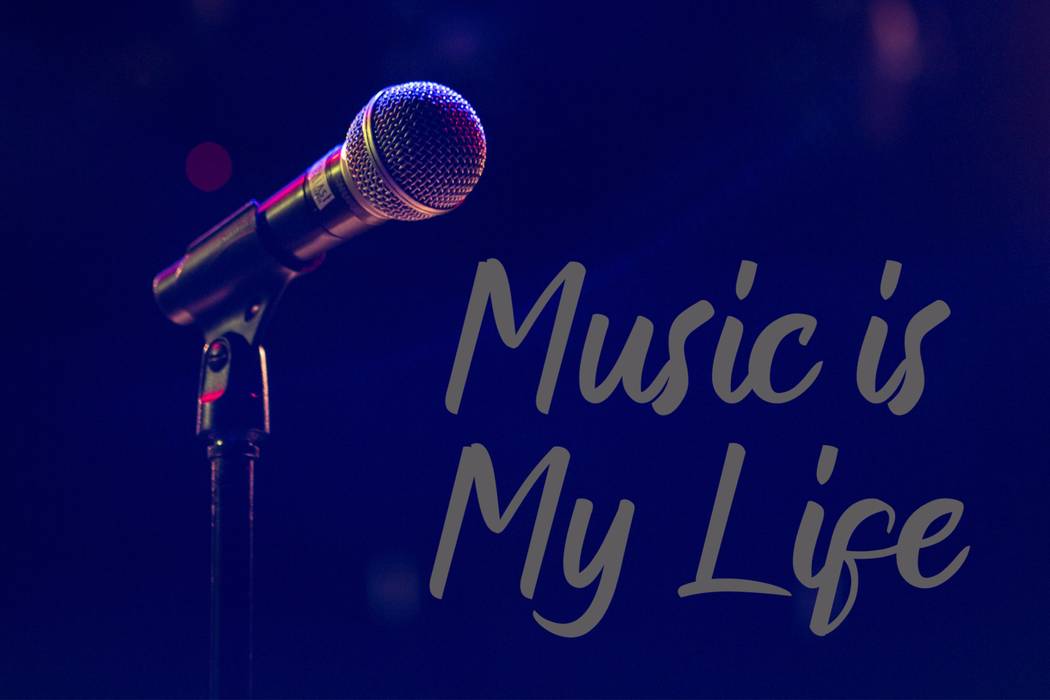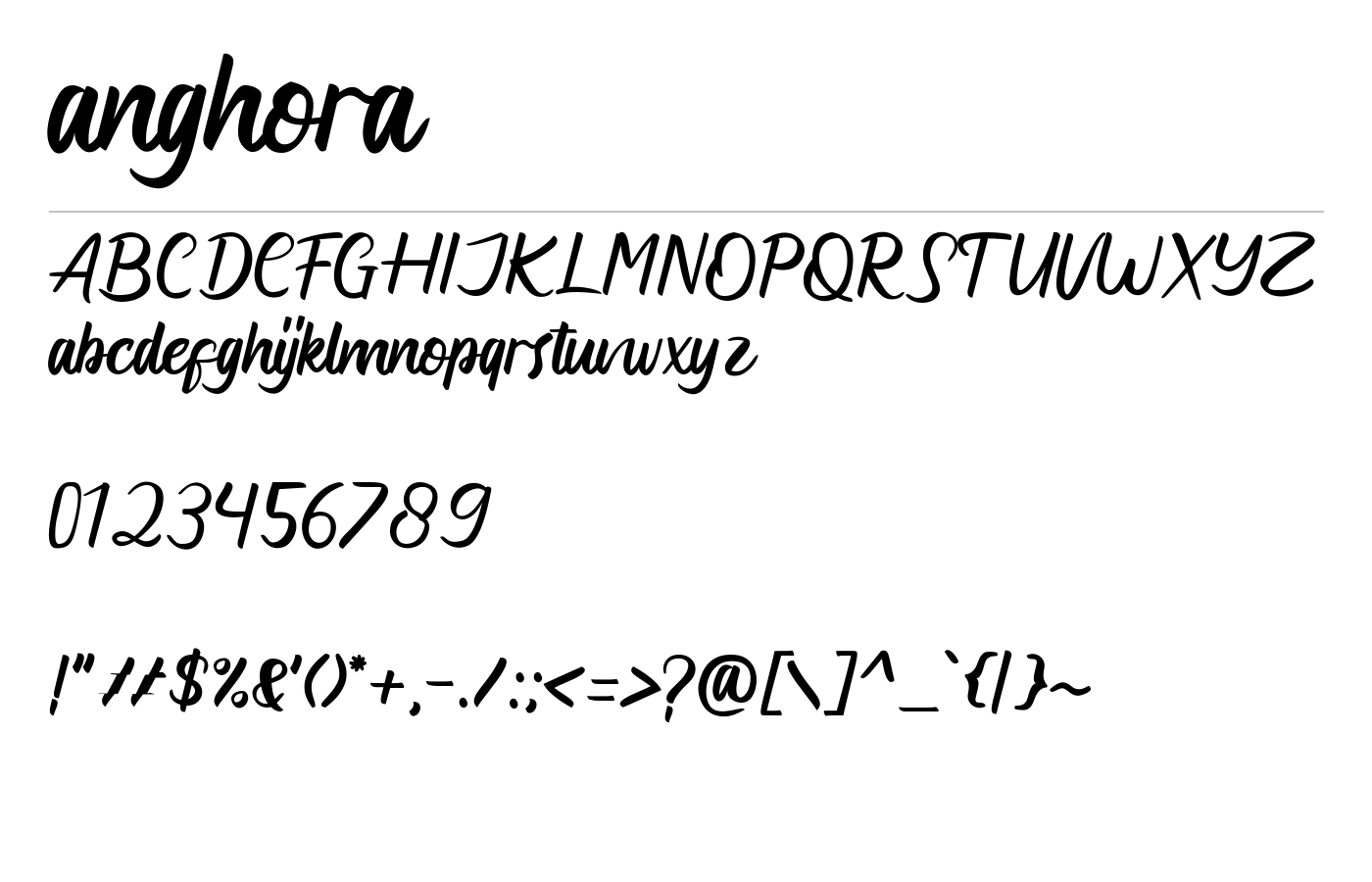
Anghora is a lively, handwritten script font with a friendly and casual feel. Its smooth, slightly slanted strokes and varying line thicknesses create a natural, warm appearance that works perfectly for creative projects, informal branding, and personal invitations. This font’s playful yet clear style makes it ideal for logos, social media graphics, and eye-catching headlines where a personal touch is desired.
Anghora Font
About Anghora Font
| Font family | Anghora Font |
| Designer | Dida Ahluddin |